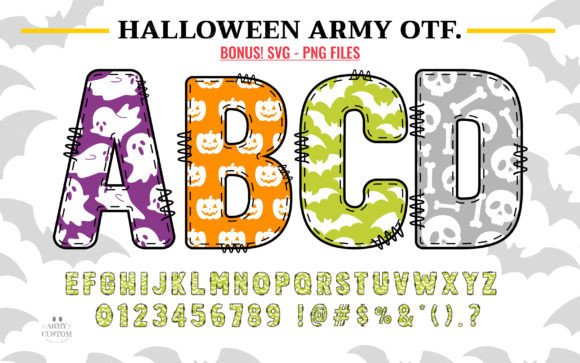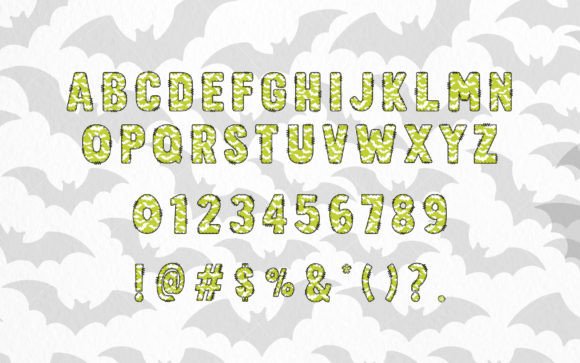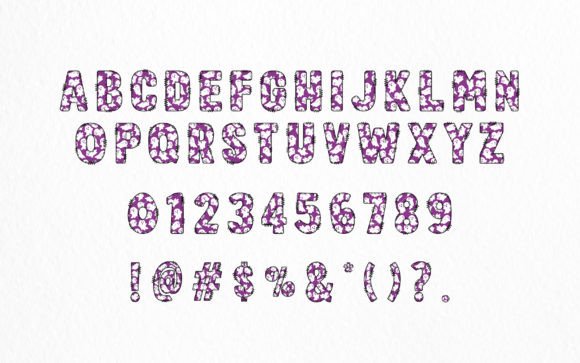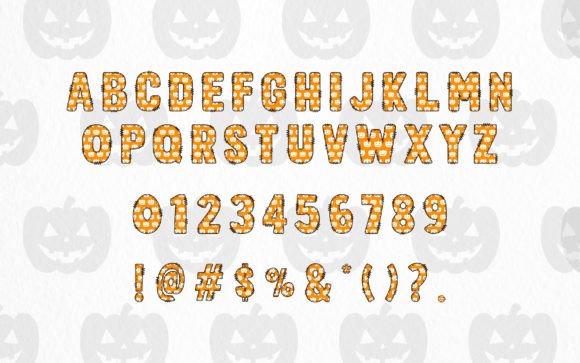
Halloween Army Set Font
About the Halloween Army Set Font
Elevate your designs with Halloween Army Set Font, a font that combines sophistication with readability. Halloween Army Font Bundle, Introducing the spellbinding and distinct Halloween Doodle Font Color that’s sure to add an unmistakable touch of magic to your creations. Ideal for enhancing arts and crafts projects, adding unique charm to scrapbooking endeavors, or infusing personality into stationary and cards. Catch every eye with enchanted blog banners and backgrounds or transform interiors with mesmerizing wall art. This font is truly a vibrant toolkit for all your creative needs, making every product you design a standout piece. Revel in the joy of creation with the Halloween Doodle Font Color.